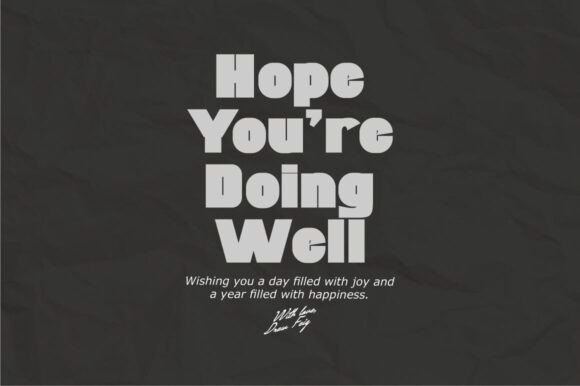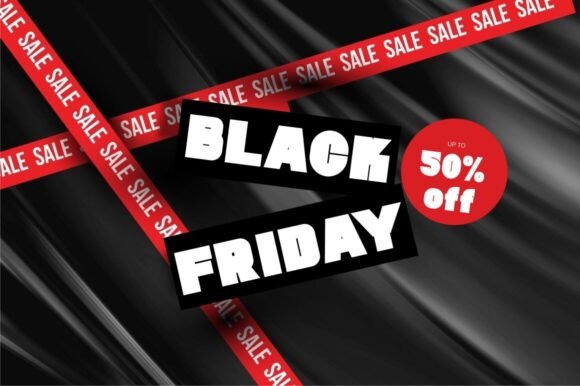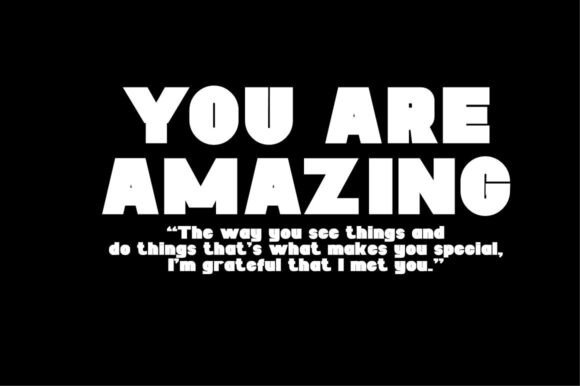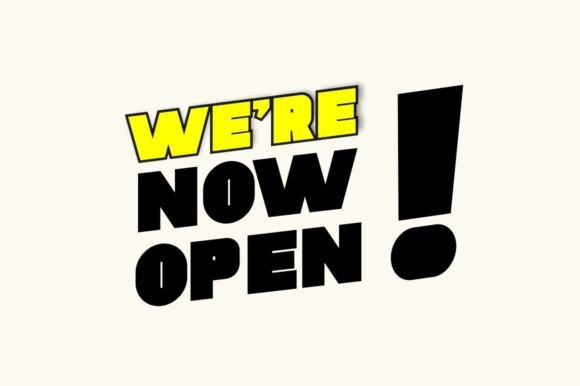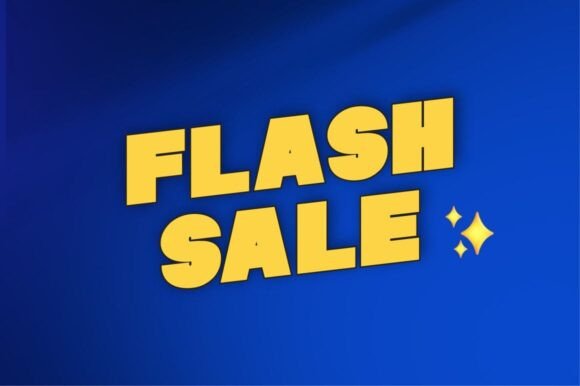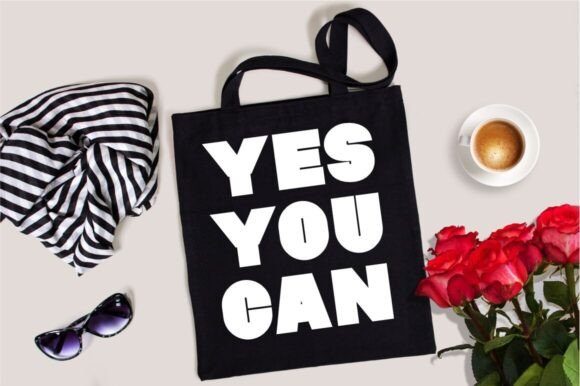
Introduction to Katurana Font
Introducing Katurana is a bold display font designed to make a statement.
With its thick, commanding strokes and sleek geometric structure, Katurana stands out in headlines, posters, and branding projects where visibility and impact are key The font features sharp, angular edges combined with smooth curves, giving it a modern, dynamic feel.